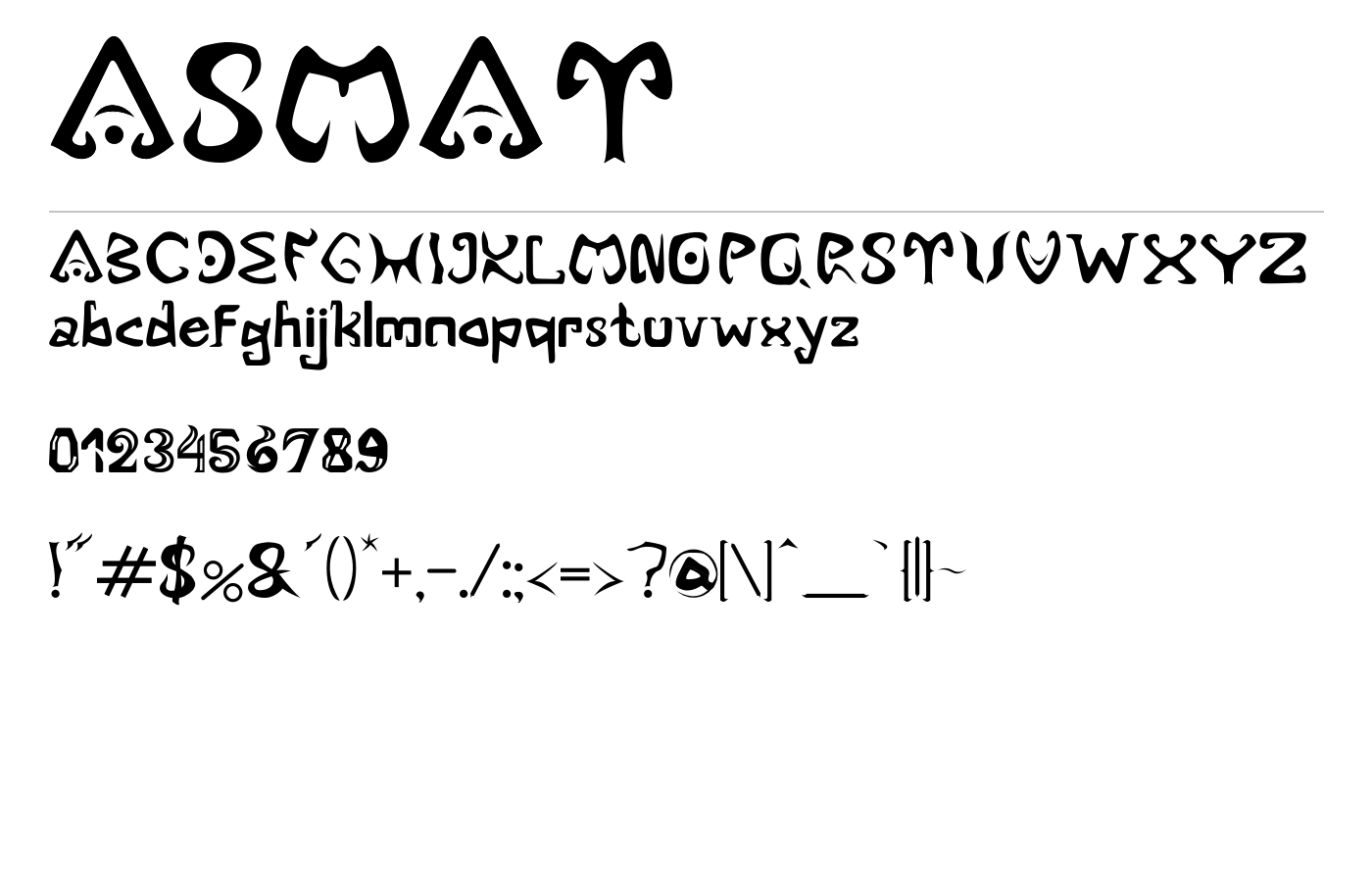
ASMAT is a unique decorative serif font with bold, stylized letterforms featuring curved, intricate details that give it an artistic, almost tribal feel. Its high contrast strokes, slight irregularities, and playful shapes make it ideal for creative branding, posters, and headlines where a distinctive, eye-catching look is desired. This font brings an exotic, handcrafted vibe that suits projects seeking a bold, expressive style.
ASMAT Font
About ASMAT Font
| Font family | ASMAT Font |
| Designer | Justin Prawiro; Jason Halim |